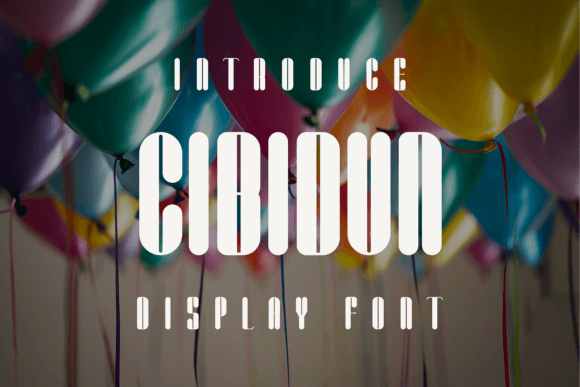
Cibidun Font: Elevate Your Designs with a Cool and Unique Display Font
In the world of design, fonts play a crucial role in conveying messages, expressing emotions, and creating visual identities. A perfect font can make or break a design, and that’s where Cibidun Font comes into play. Cibidun is a cool and unique display font that has the potential to elevate any creation, regardless of the topic or theme. In this article, we’ll dive into the features, benefits, and uses of Cibidun Font, and explore how it can become an incredible asset to your font library.
What is Cibidun Font?
Cibidun Font is a modern, sans-serif display font designed to make a statement. Its unique and cool design makes it perfect for headlines, titles, and short texts. The font’s sleek and clean lines, combined with its distinctive style, set it apart from other fonts in the market. Whether you’re a designer, craftsperson, or DIY enthusiast, Cibidun Font is an excellent addition to your font collection.
Key Features of Cibidun Font
- Unique Design: Cibidun Font boasts a one-of-a-kind design that will make your creations stand out from the crowd.
- Cool and Modern: The font’s sleek and modern design makes it perfect for contemporary designs, such as posters, flyers, and social media graphics.
- Display Font: Cibidun Font is specifically designed as a display font, making it ideal for headlines, titles, and short texts.
- Easy to Read: Despite its unique design, Cibidun Font remains easy to read, even in smaller sizes.
- Versatile: The font can be used for various design projects, from print to digital media.
Benefits of Using Cibidun Font
So, why should you choose Cibidun Font for your designs? Here are some benefits that make it an excellent addition to your font library:
- Adds Visual Interest: Cibidun Font adds a touch of uniqueness and visual interest to your designs, making them more engaging and attention-grabbing.
- Elevates Your Brand: Using Cibidun Font can help elevate your brand’s visual identity and create a distinctive look that sets you apart from competitors.
Use Cases for Cibidun Font
Cibidun Font is an incredibly versatile font that can be used for a wide range of design projects. Here are some use cases to get you started:
- Posters and Flyers: Use Cibidun Font to create eye-catching posters and flyers for events, promotions, or announcements.
- Social Media Graphics: Add a touch of personality to your social media graphics, such as Instagram posts, Facebook headers, and Twitter banners.
- Logos and Branding: Use Cibidun Font to create unique logos, business cards, and letterheads that reflect your brand’s personality.
- Packaging Design: Add a pop of personality to your product packaging with Cibidun Font.